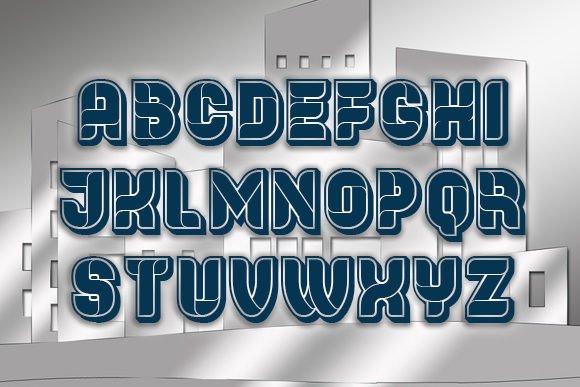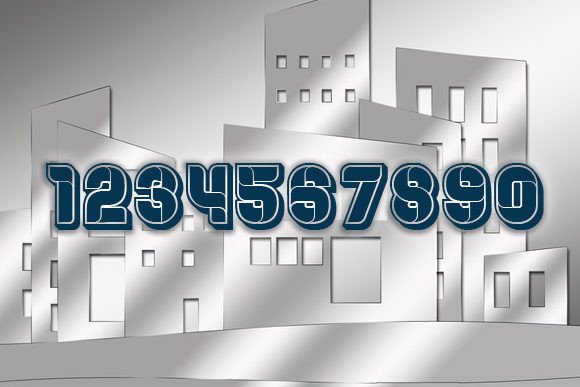
Introducing Center Font: Elevate Your Designs with a Striking 3D Typeface
Are you tired of using the same old fonts in your designs? Look no further! Center Font is a game-changing 3D typeface that will add a touch of sophistication and style to any project. Whether you’re working on a poster, flyer, or any other design, Center Font is sure to make it stand out from the crowd.
What is Center Font?
Center Font is a unique and eye-catching 3D typeface that is perfect for designers and crafters looking to add some depth and dimension to their work. Its striking design makes it ideal for use on a variety of materials, including posters, flyers, brochures, and more.
Key Features of Center Font
- Striking 3D Design: Center Font’s 3D design gives it a bold and eye-catching appearance that is sure to grab attention.
- High-Quality Resolution: This font is designed to be clear and legible, even at large sizes, making it perfect for use on a variety of materials.
- Versatile: This font can be used on a wide range of materials, from posters and flyers to brochures and more.
Benefits of Using Center Font
So why should you choose Center Font for your next design project? Here are just a few benefits of using this amazing 3D typeface:
- Adds Depth and Dimension: Center Font’s 3D design adds a level of depth and dimension to your designs, making them more visually appealing.
- Increases Engagement: The striking design of Center Font is sure to grab attention and increase engagement with your audience.
- Enhances Brand Image: Using a high-quality font like Center Font can help to enhance your brand image and make your designs look more professional.
Design Ideas Using Center Font
- Posters: Use Center Font to create eye-catching posters for events, promotions, or announcements.
- Flyers: Add some depth and dimension to your flyers with Center Font’s striking 3D design.
- Brochures: Use Center Font to create professional-looking brochures that showcase your products or services.
- Social Media Graphics: Add some style to your social media graphics with Center Font’s bold and eye-catching design.
Center Font is a versatile font that can be used on a wide range of materials, from posters and flyers to brochures and more. Its striking 3D design is sure to grab attention and increase engagement with your audience. So if you’re looking for a font that will take your designs to the next level, look no further than Center Font.